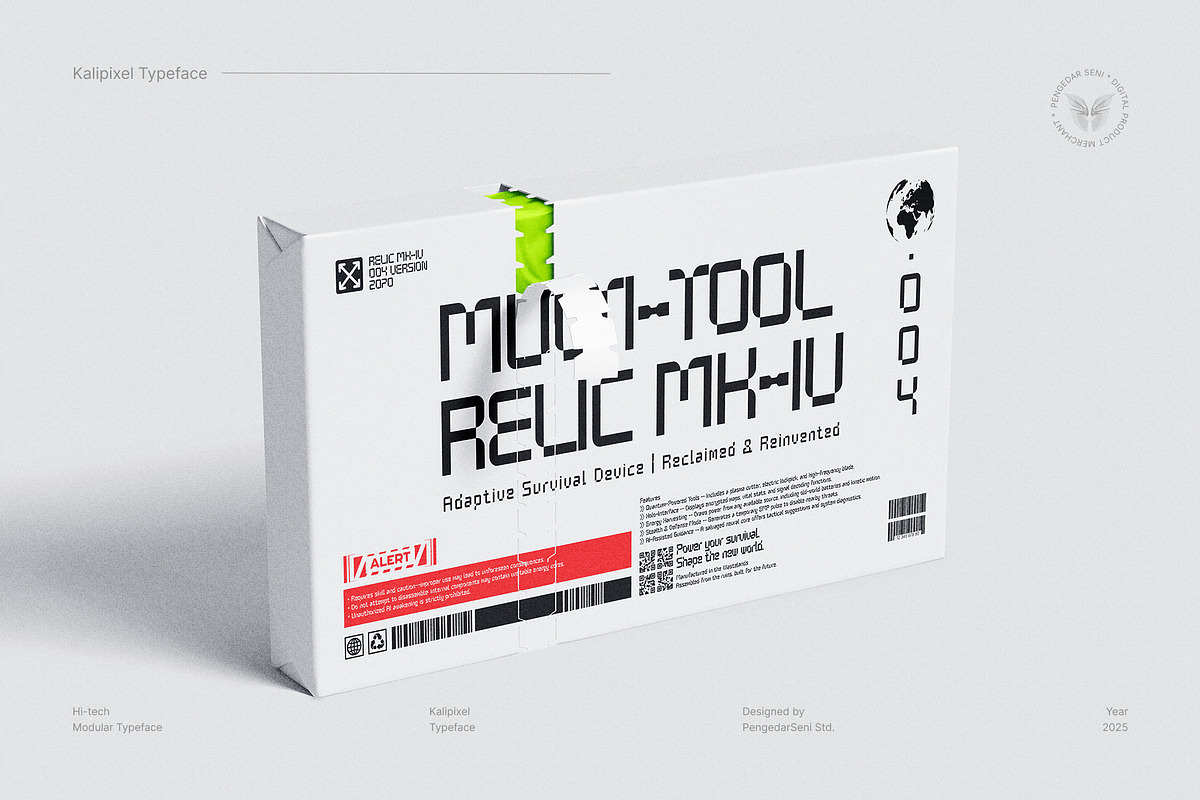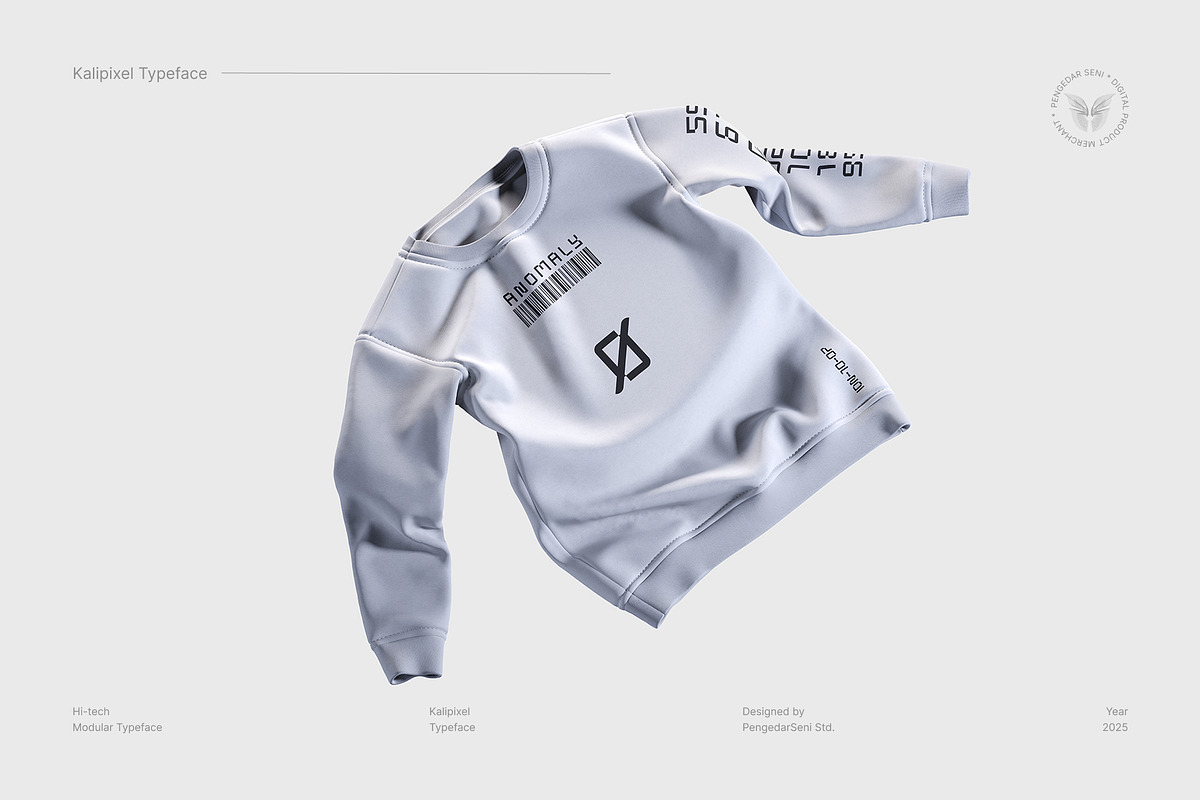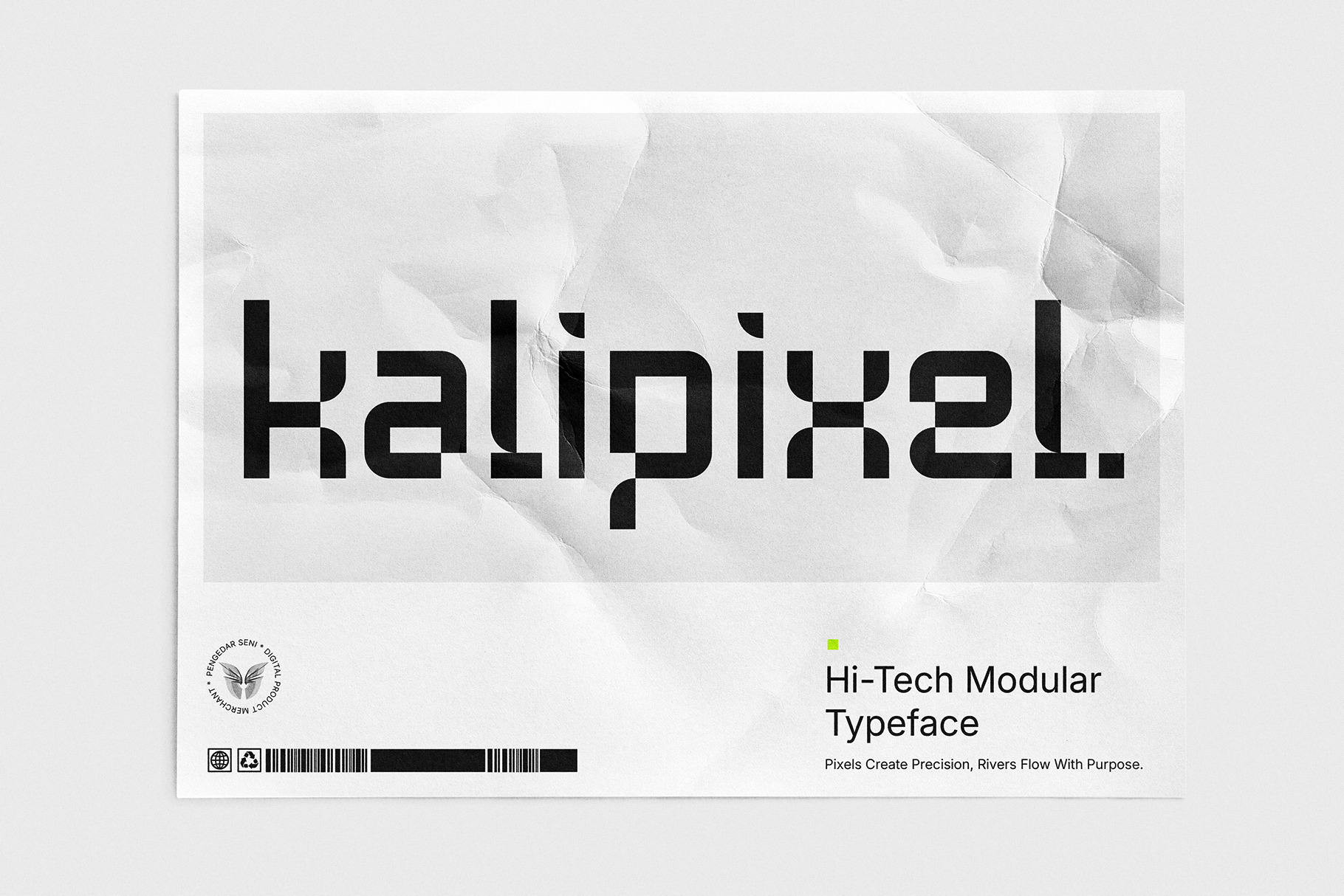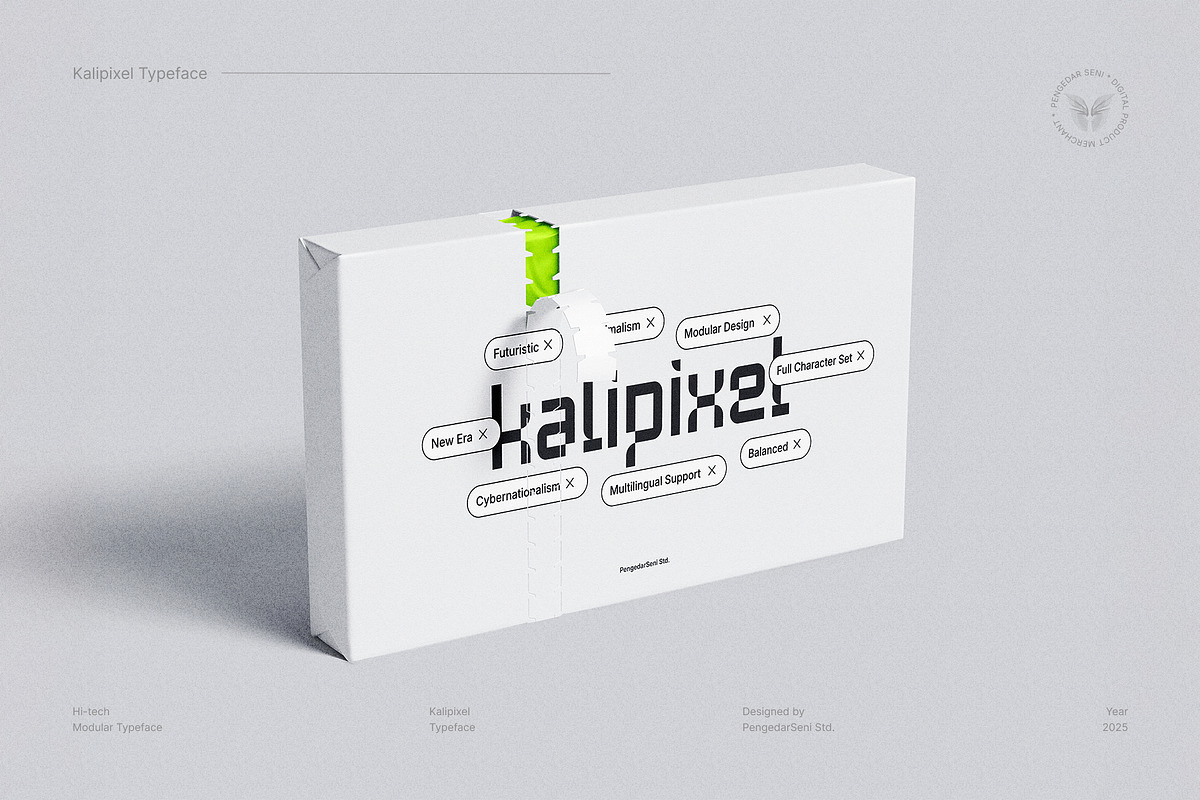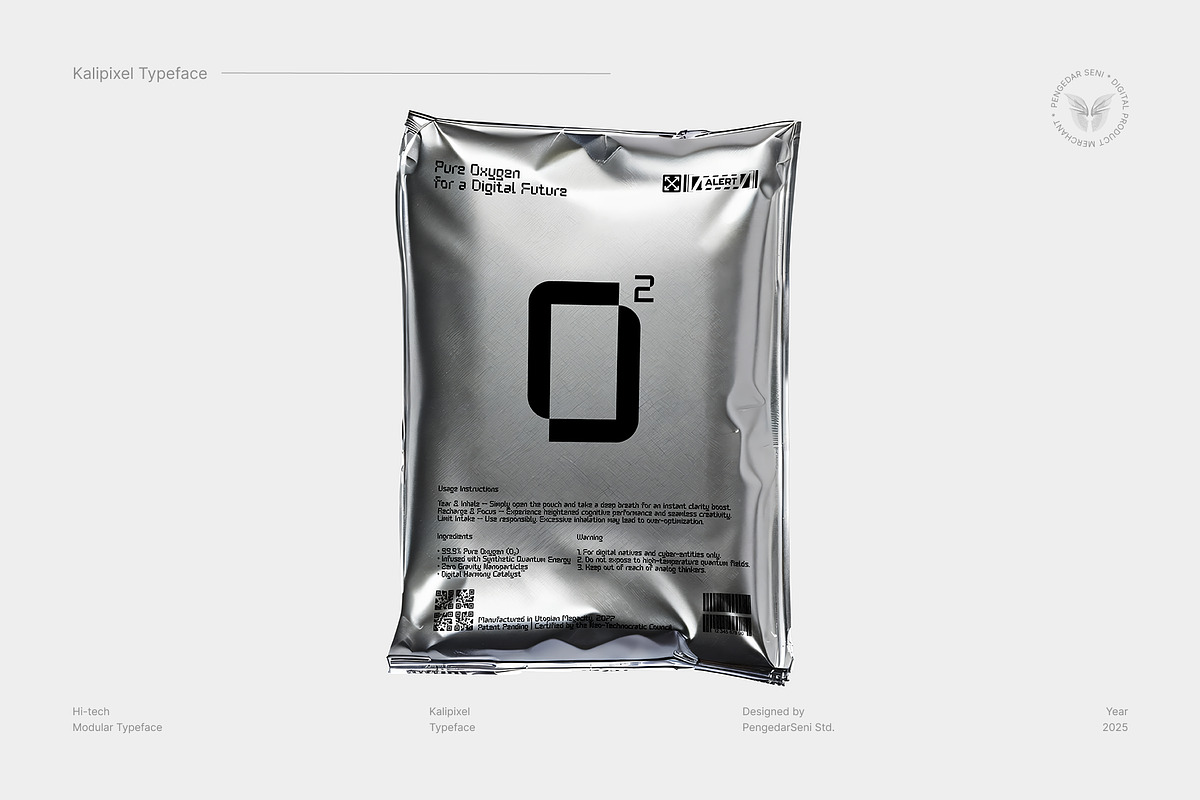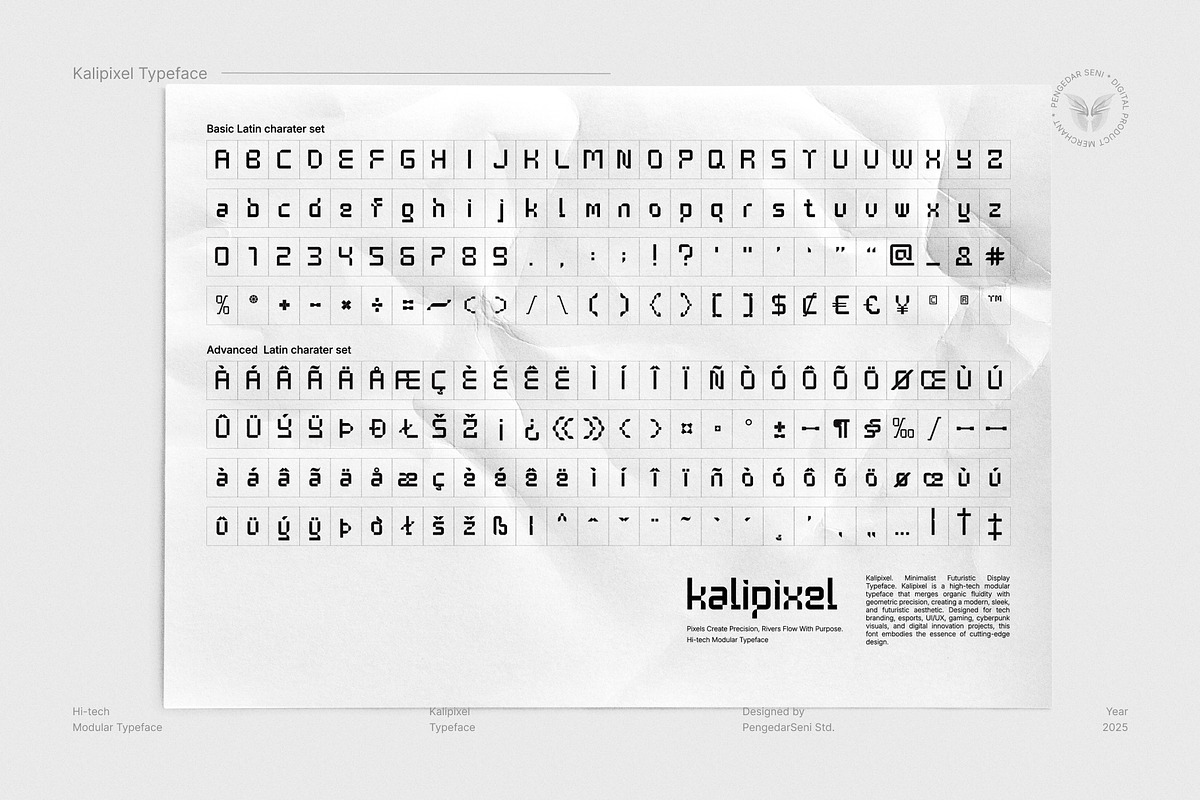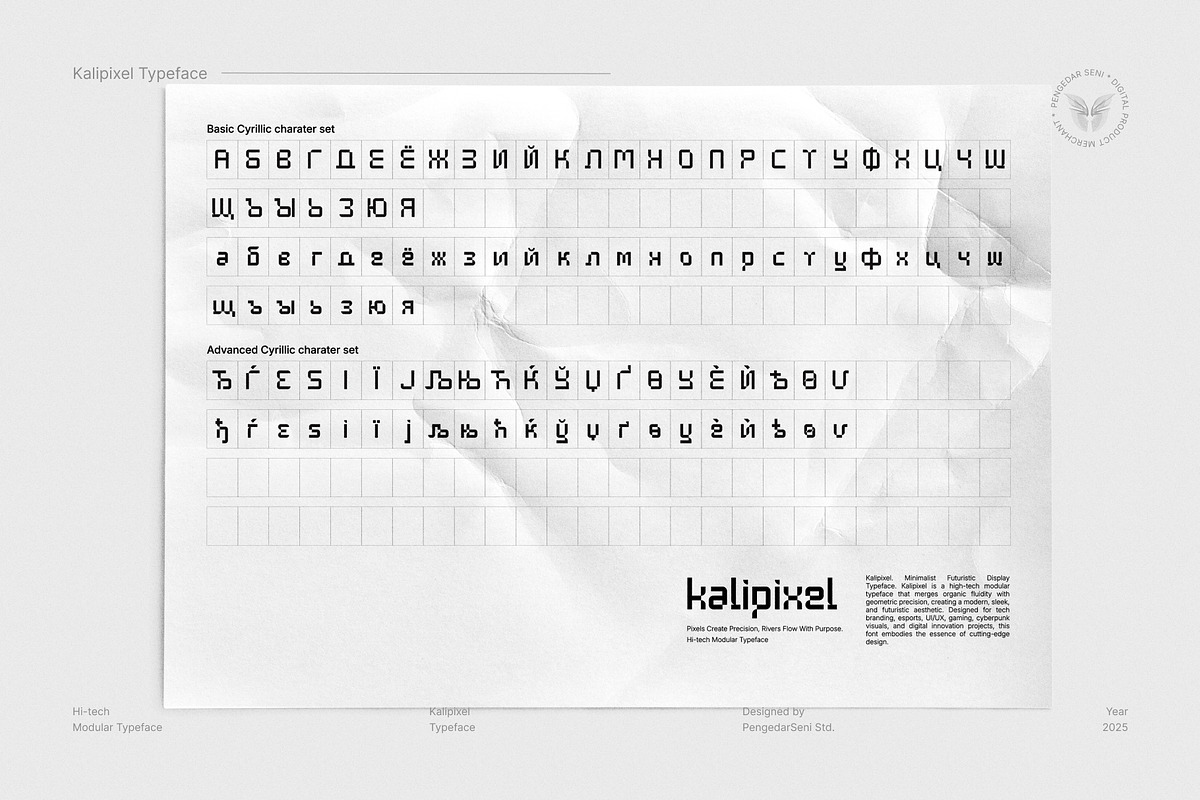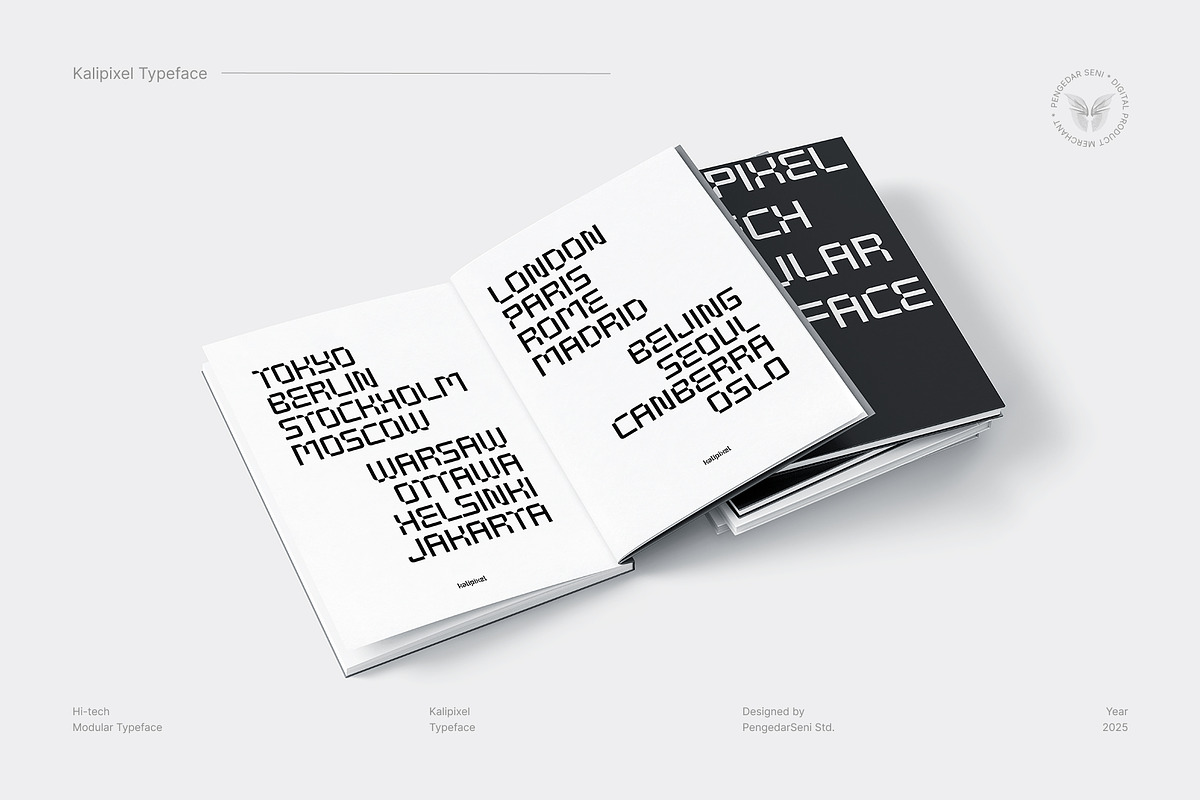
Kalipixel – Futuristic Typeface
Kalipixel – Minimalist Futuristic Display Typeface Kalipixel is a high-tech modular typeface that merges organic fluidity with geometric precision, creating a modern, sleek, and futuristic aesthetic. Designed for tech branding, esports, UI/UX, gaming, cyberpunk visuals, and digital innovation projects, this font embodies the essence of cutting-edge design.
The Meaning Behind Kalipixel The name Kalipixel represents the fusion of two core elements:
"Kali" (Flow & Adaptability) – Inspired by the seamless movement of a river, its rounded edges symbolize flexibility and innovation in typography. "Pixel" (Digital Structure & Precision) – As the building block of digital visuals, pixels define clarity, modularity, and structured form. This combination results in a bold, future-forward typeface—ideal for brands, creators, and designers who want to make a powerful, tech-driven impact.
✅ Why Choose Kalipixel?
Futuristic & Modular Design – Perfect for branding, tech startups, gaming, and digital media.
Balanced Rounded & Geometric Aesthetic – A unique blend of smooth curves and pixel-inspired sharpness.
Full Character Set – Includes uppercase, lowercase, numerals, punctuation, and symbols.
Multilingual Support – Covers Latin, Cyrillic, and special characters.
Versatile & Scalable – Ideal for logos, UI/UX design, digital interfaces, and futuristic visuals.
Highly Legible & Sharp – Optimized for headlines, posters, esports branding, and display text.
Embodying the Future – A minimalist yet innovative font that resonates with modern typography trends.
Kalipixel is more than just a typeface—it’s a statement of modernity, technology, and digital evolution. 🚀
Pixels Create Precision, Rivers Flow With Purpose.